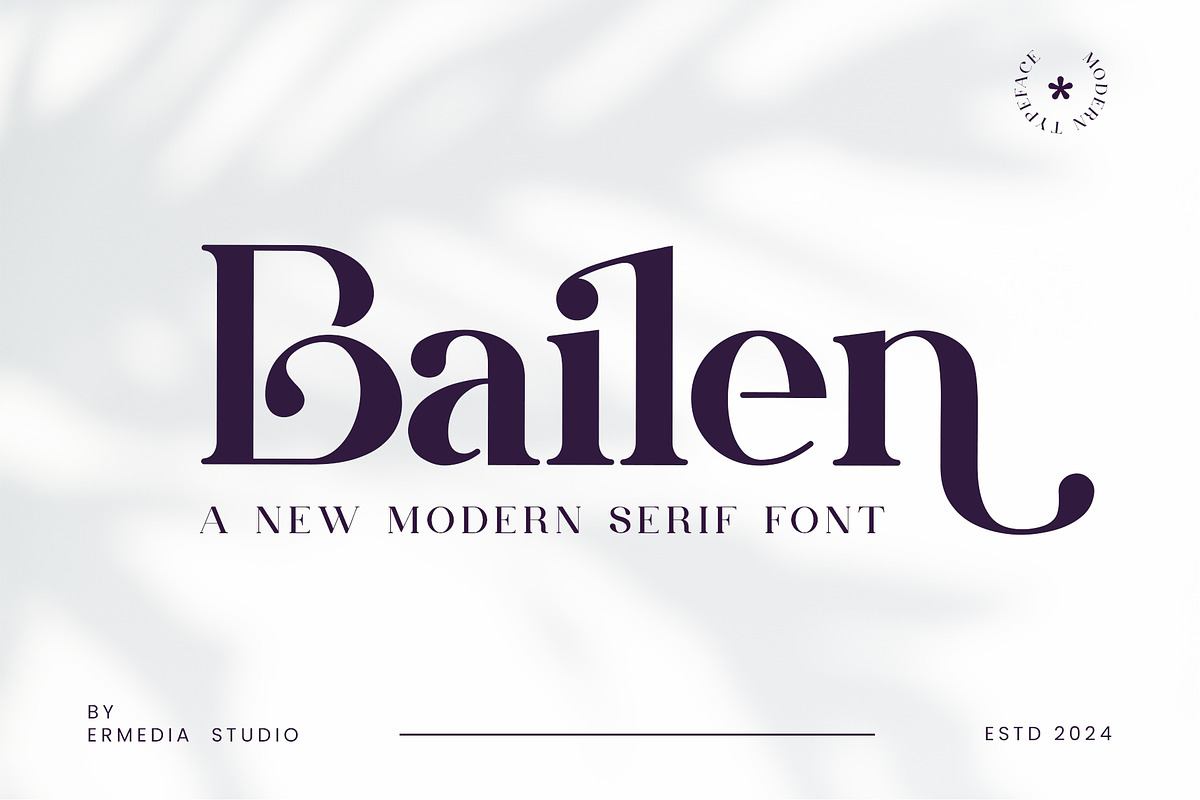
Bailen Serif Font Free Download
Bailen Serif Font Free Download is a beautifully crafted typeface that blends classic serif elegance with a touch of modern minimalism. Its refined curves, smooth contrast, and balanced proportions make it an ideal choice for editorial design, branding, wedding invitations, upscale packaging, and luxury logos.
Designed for creatives who value sophistication and clarity, Bailen brings a polished and timeless feel to any project. Whether you're working on a fashion lookbook or a refined brand identity, this font helps communicate your message with both grace and authority.